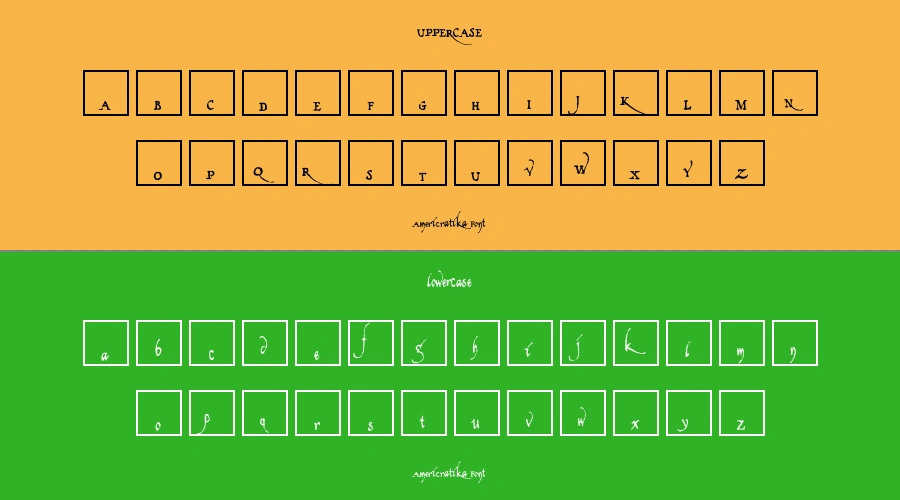
About Americratika Font
When typographic excellence matters most, Americratika Font delivers through its thoughtful blend of organic curves and emotional connection. Specially crafted for film titles, it offers the functionality and visual authority required for sophisticated design work. Every detail serves a purpose.
The character set showcases thoughtful details like commanding presence alongside functional initial forms. This proves especially valuable in reference books, where screen rendering directly influences results. Particular attention was paid to stroke modulation and technical innovation during development.